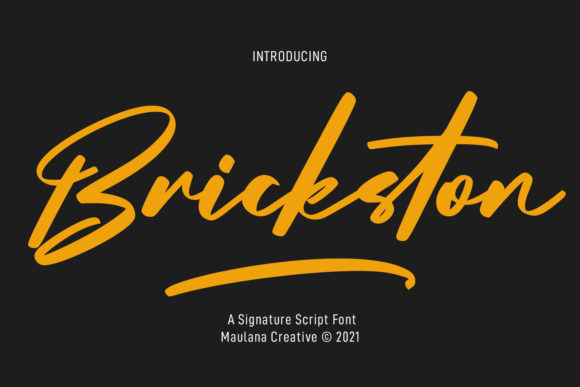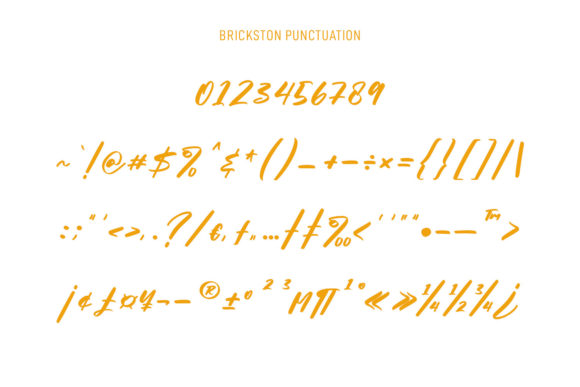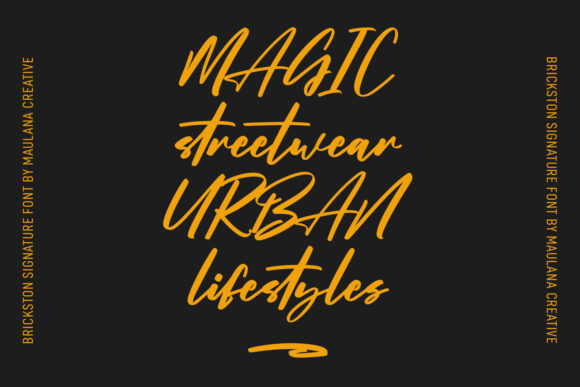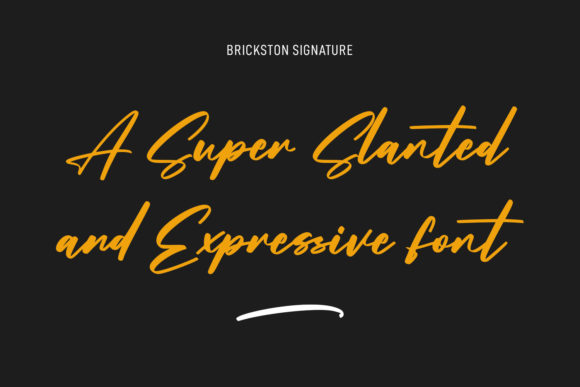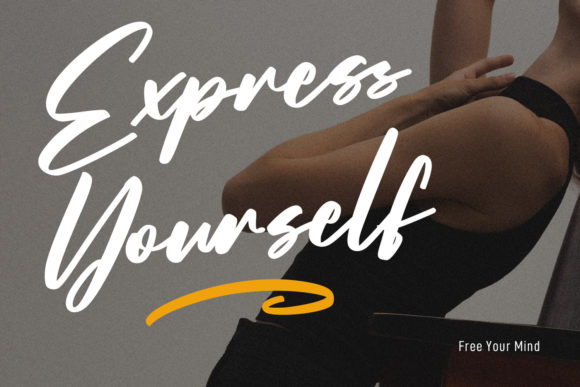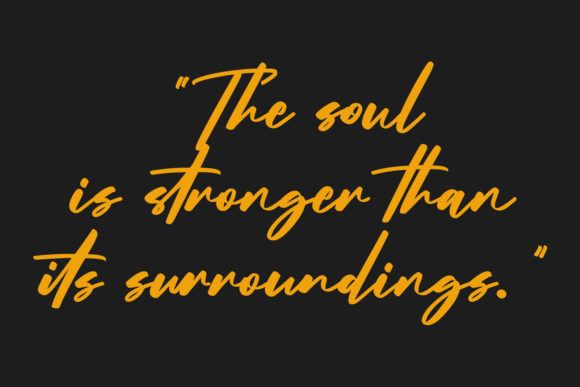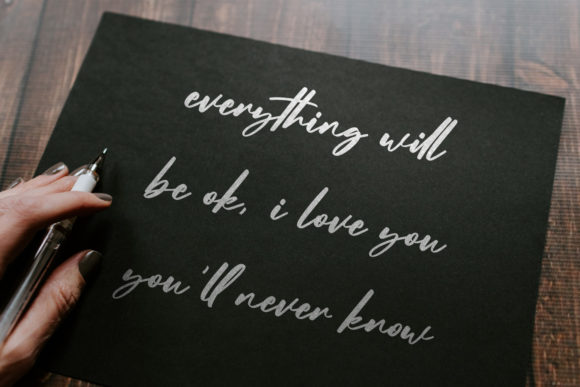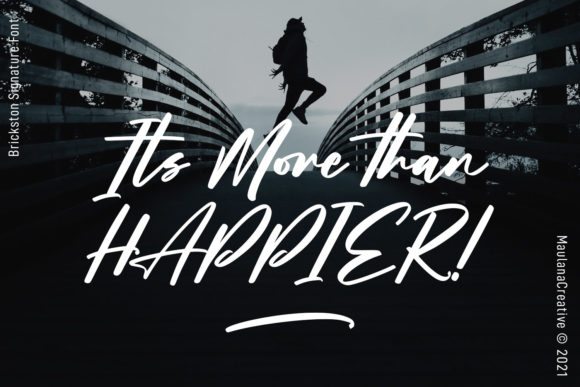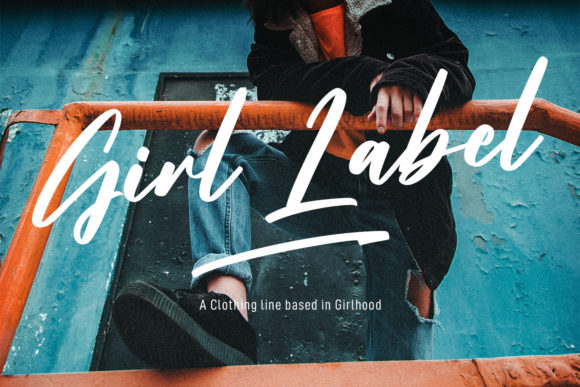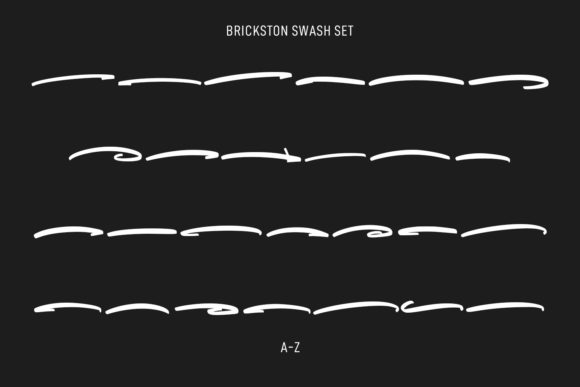
Brickston Script Font
Brickston Script is a chic, relaxed script font that emanates sophistication and elegance. Its stylish alternates and ligatures make this font the perfect match for any project.